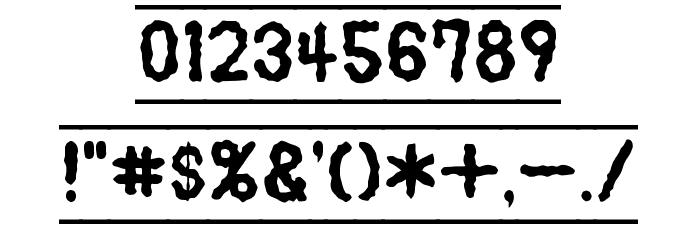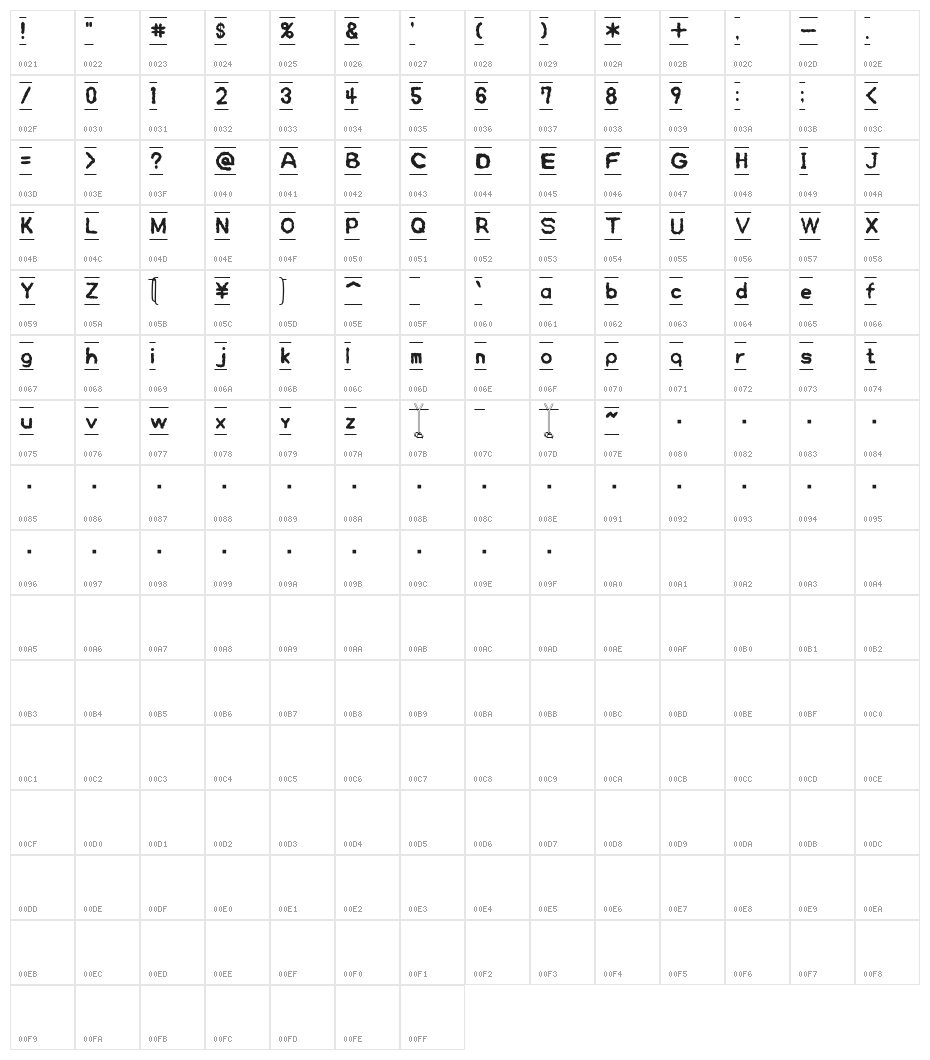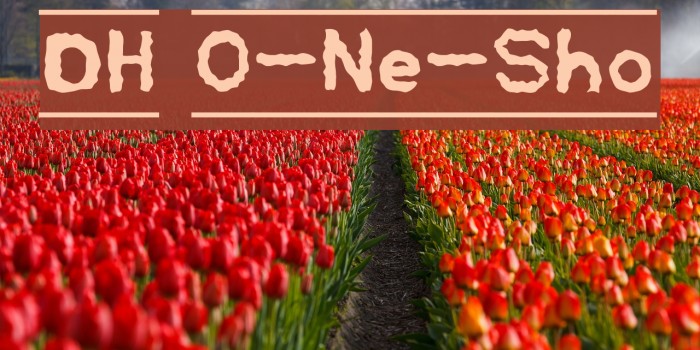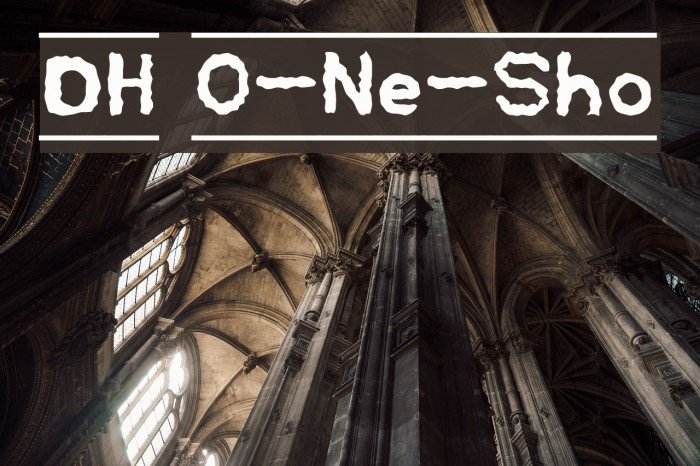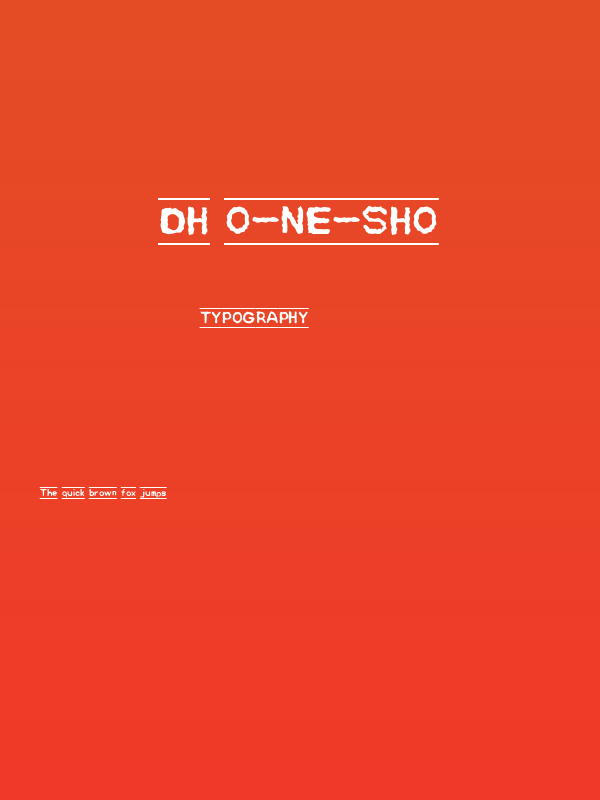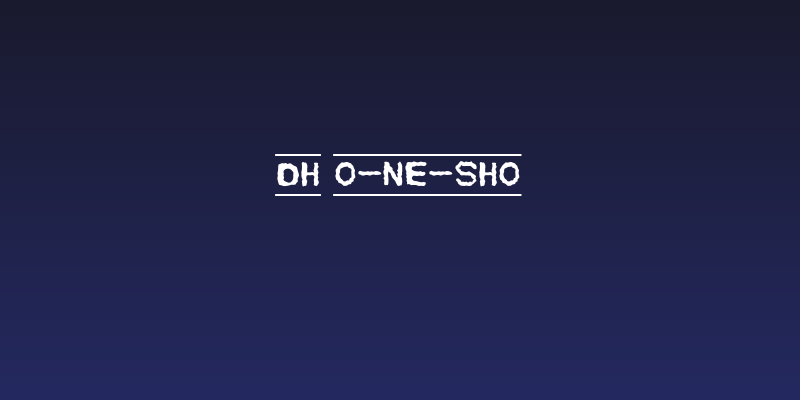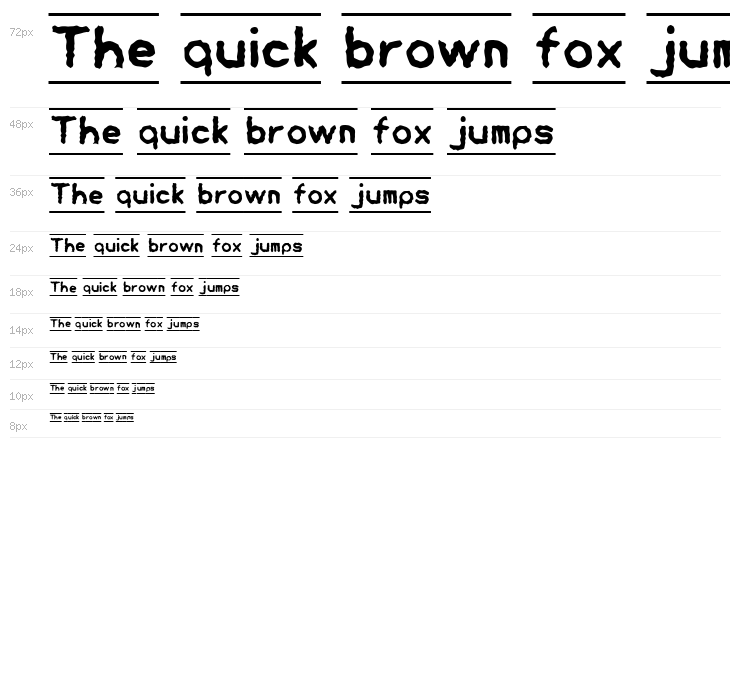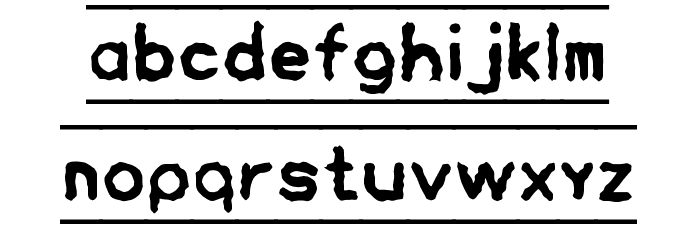
DH O-Ne-Sho Font
DH O-Ne-Sho Description
This font features a playful and irregular design, characterized by its uneven, hand-drawn appearance. The letters have a rough, textured edge that gives them a unique, organic feel. The uppercase and lowercase characters maintain a consistent style, with a slightly wider stance that enhances readability. Numbers and special characters follow the same aesthetic, ensuring a cohesive look across all elements. The font's quirky and informal style makes it suitable for creative and artistic projects, where a touch of whimsy is desired.
| Proposed Projects | Ideal for children's books, creative posters, and artistic branding. |